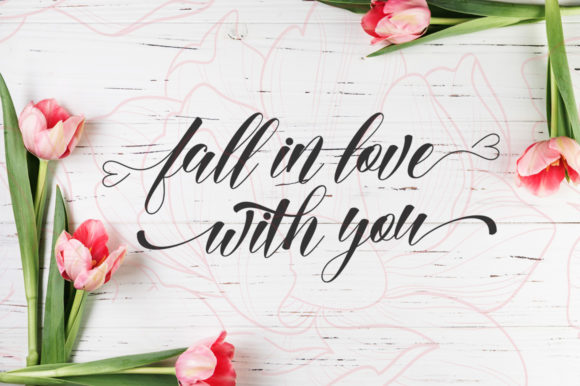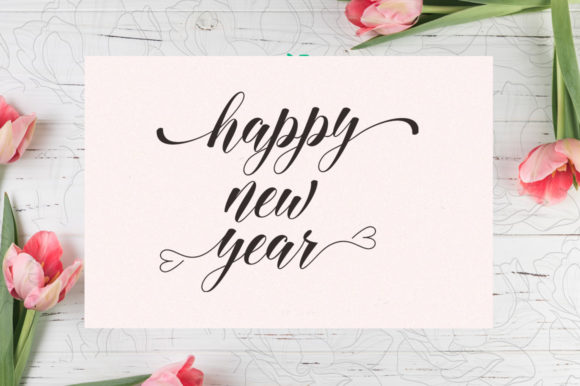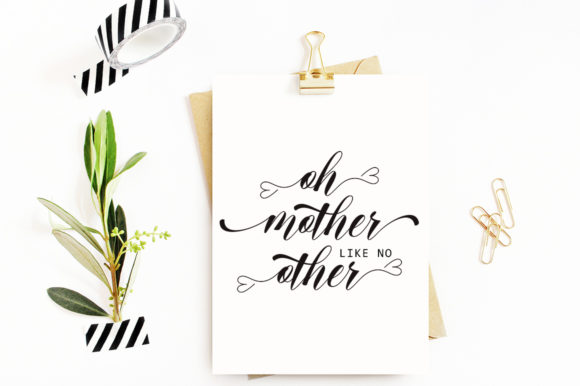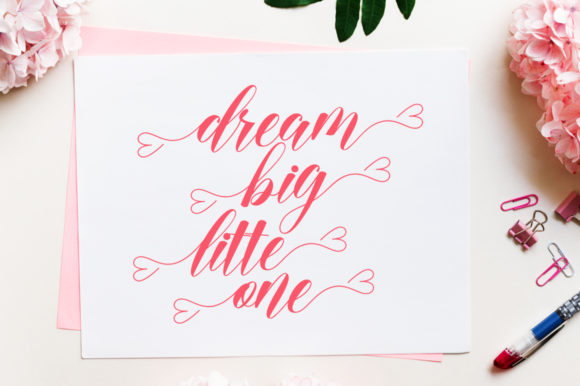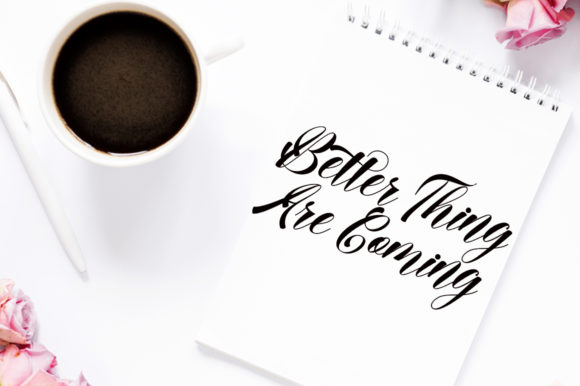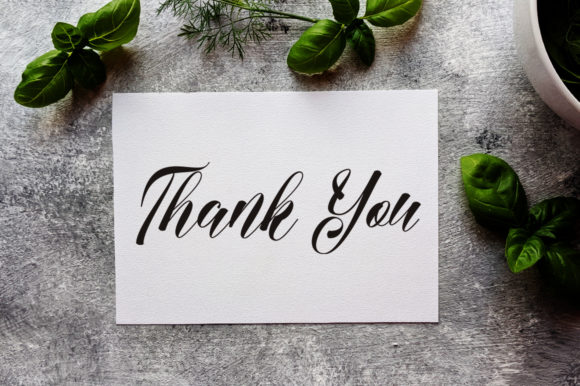
Medina Font
About Medina Font
Medina features a beautifully authentic style and pays homage to classic calligraphy. Fall in love with its sweet charm!